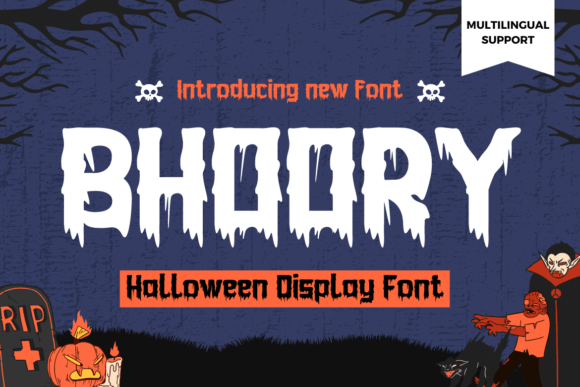
The Spooky-ooky Bhoory Halloween Font: A Designer’s Dream Come True
I’ll never forget the time I was working on a Halloween-themed project for a client, and I just couldn’t find the right font to capture the spooky spirit. The client wanted something bold, yet eerie, and I was determined to deliver. That’s when I stumbled upon the Bhoory Halloween Font, and let me tell you, it was a game-changer! 🎃
• ✨ The bold and edgy design that screams Halloween
• ✅ The versatility – use it for invitations, flyers, posters, or as a headline
• 🔥 The ability to add a touch of spookiness to any design
• 👻 The font’s artistic and creative vibe that allows for endless possibilities
While I absolutely love the Bhoory Halloween Font, there are a few things to keep in mind:
• 🤔 The font may not be suitable for body text due to its bold design
The Bhoory Halloween Font was designed with one goal in mind: to create a bold and spooky font that would capture the essence of Halloween. The designer, inspired by the creepy and eerie atmosphere of the holiday, set out to create a font that would be both artistic and creative. The result is a font that’s perfect for designers, crafters, and creative hobbyists looking to add a touch of spookiness to their designs.
Q: What is the Bhoory Halloween Font?
A: The Bhoory Halloween Font is a bold font designed specifically for Halloween-themed projects.